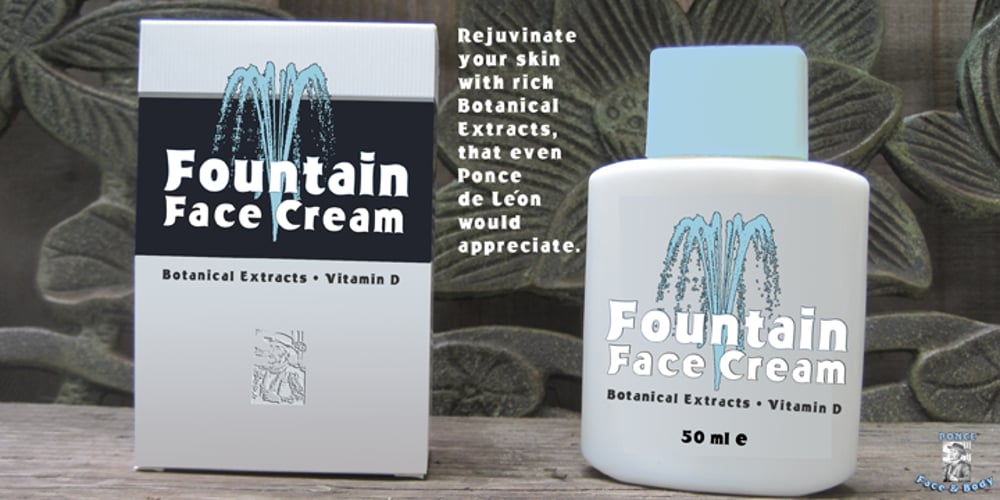
Big Country Font Family was designed by Robert Petrick and published by Robert Petrick. Big Country contains 1 styles and family package options. “Big Country” is a versatile bold new font that is great for headlines or product logos. It is an elegant design but can also be used playfully. “Big Country” is easy to read even at fairly small point sizes.